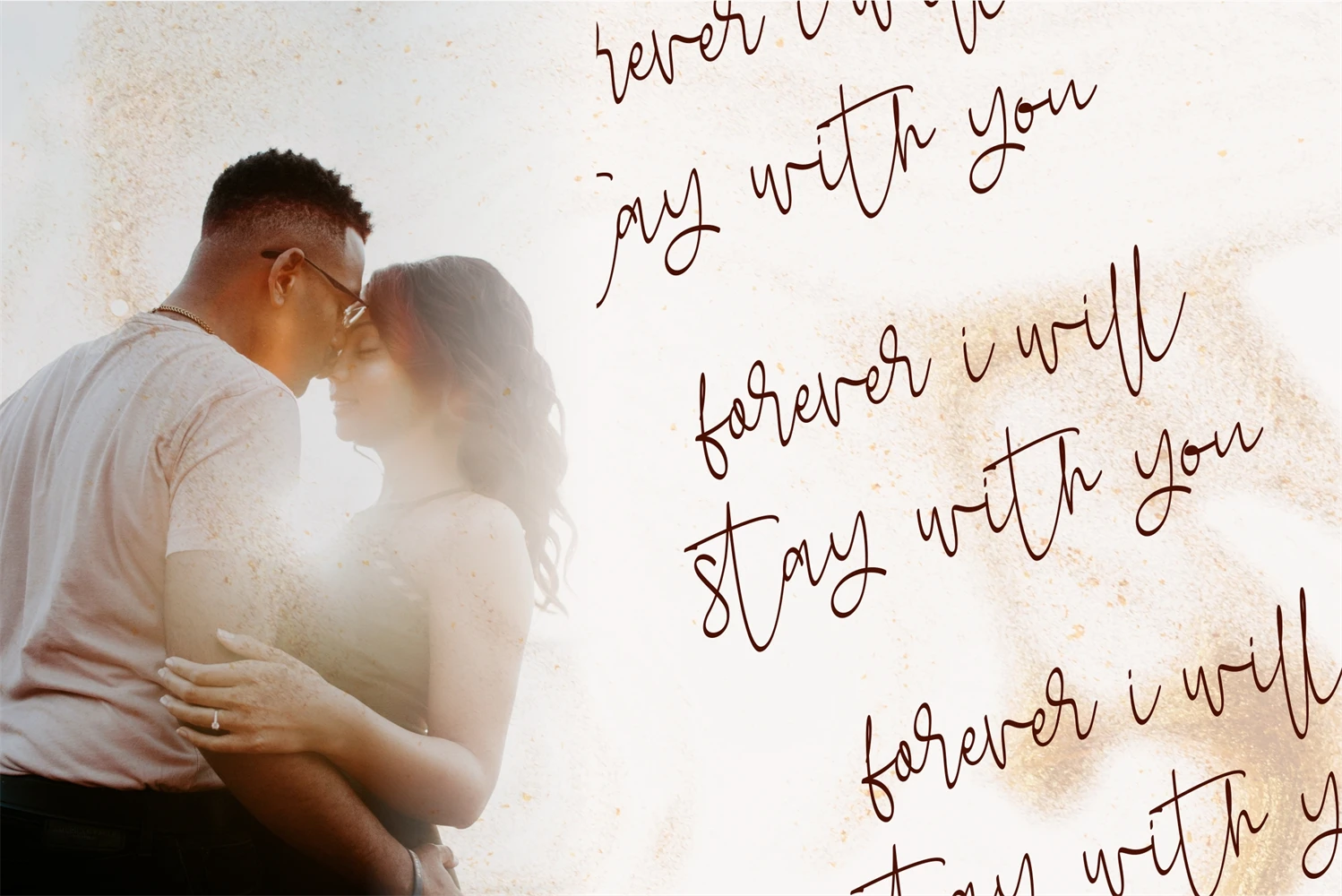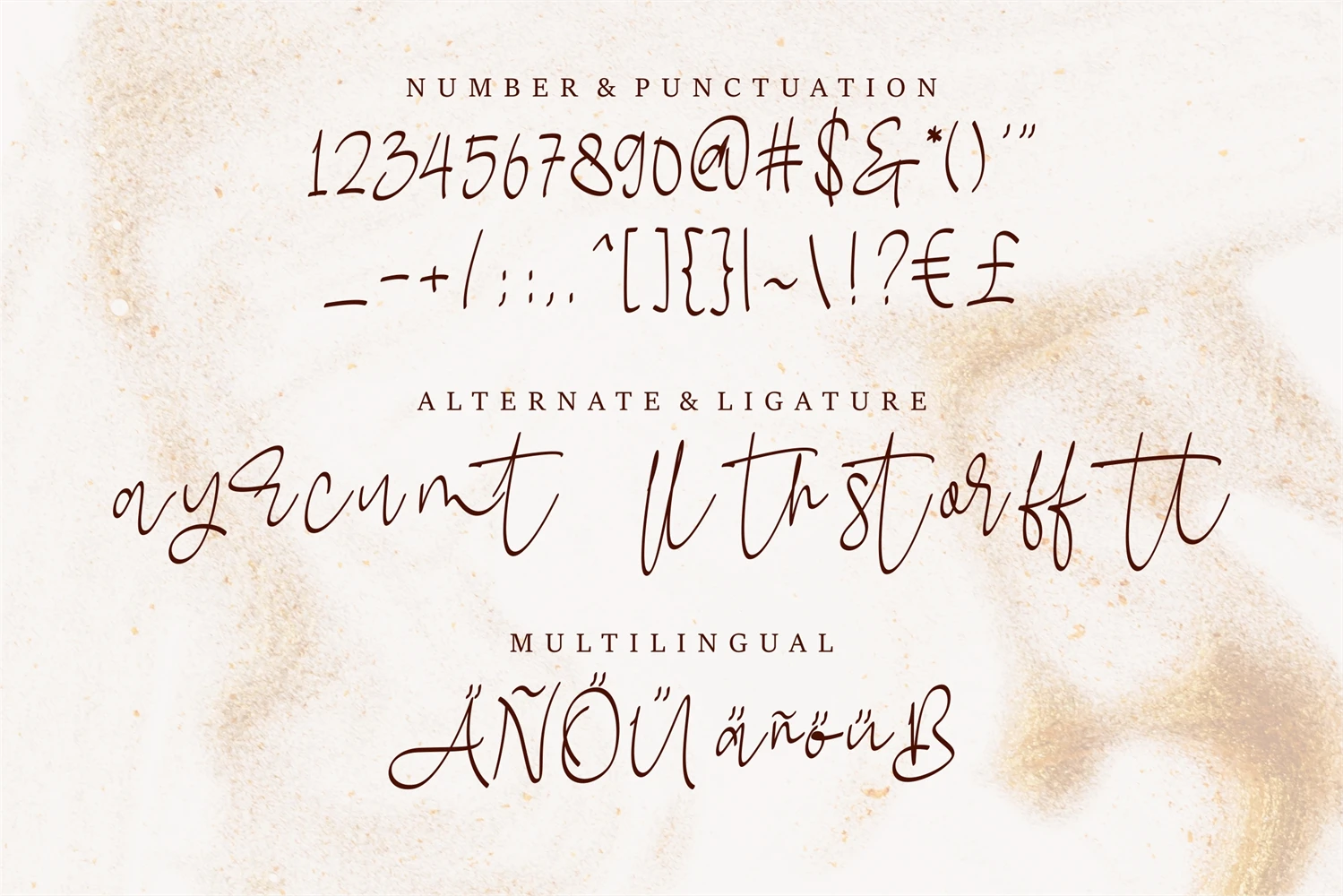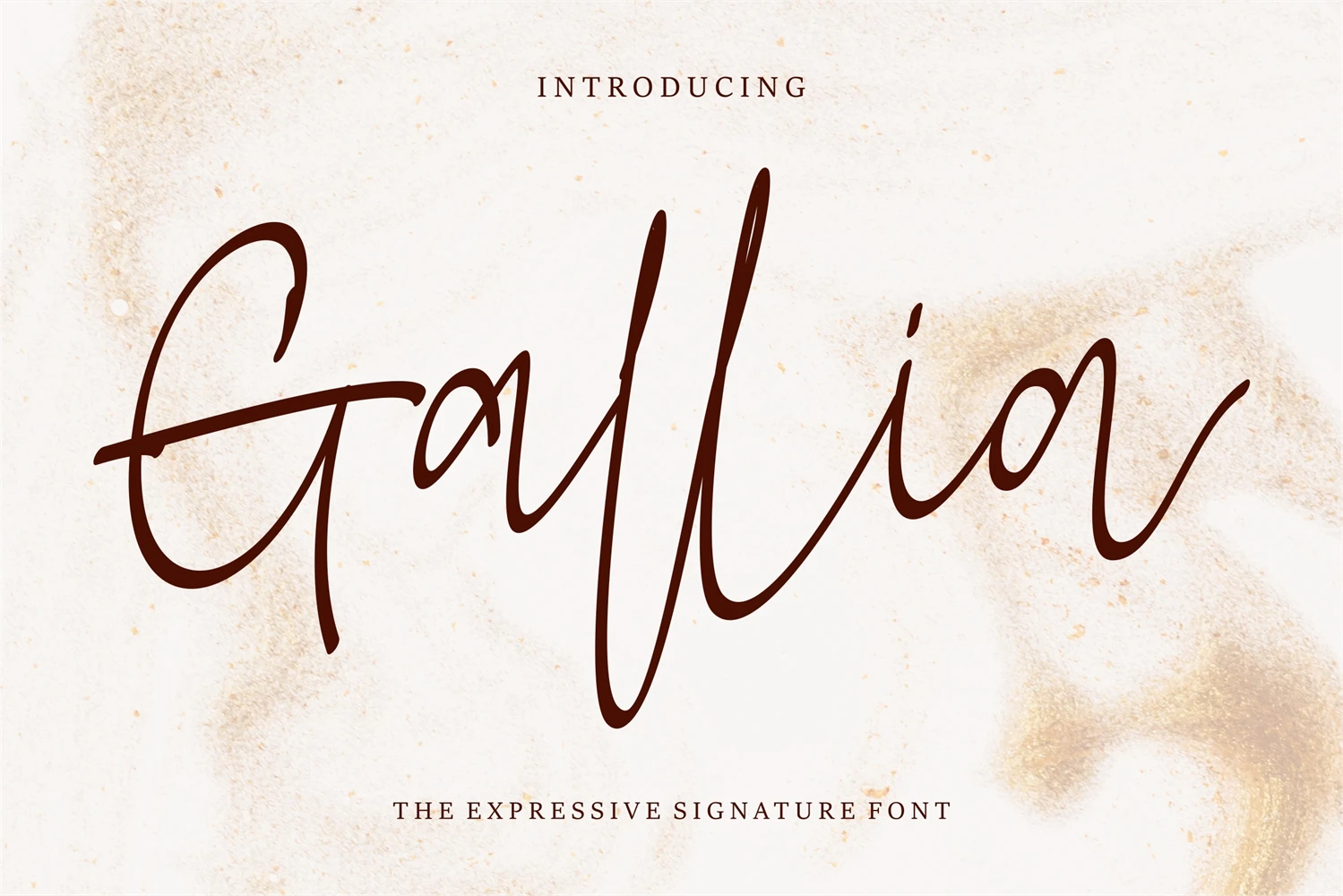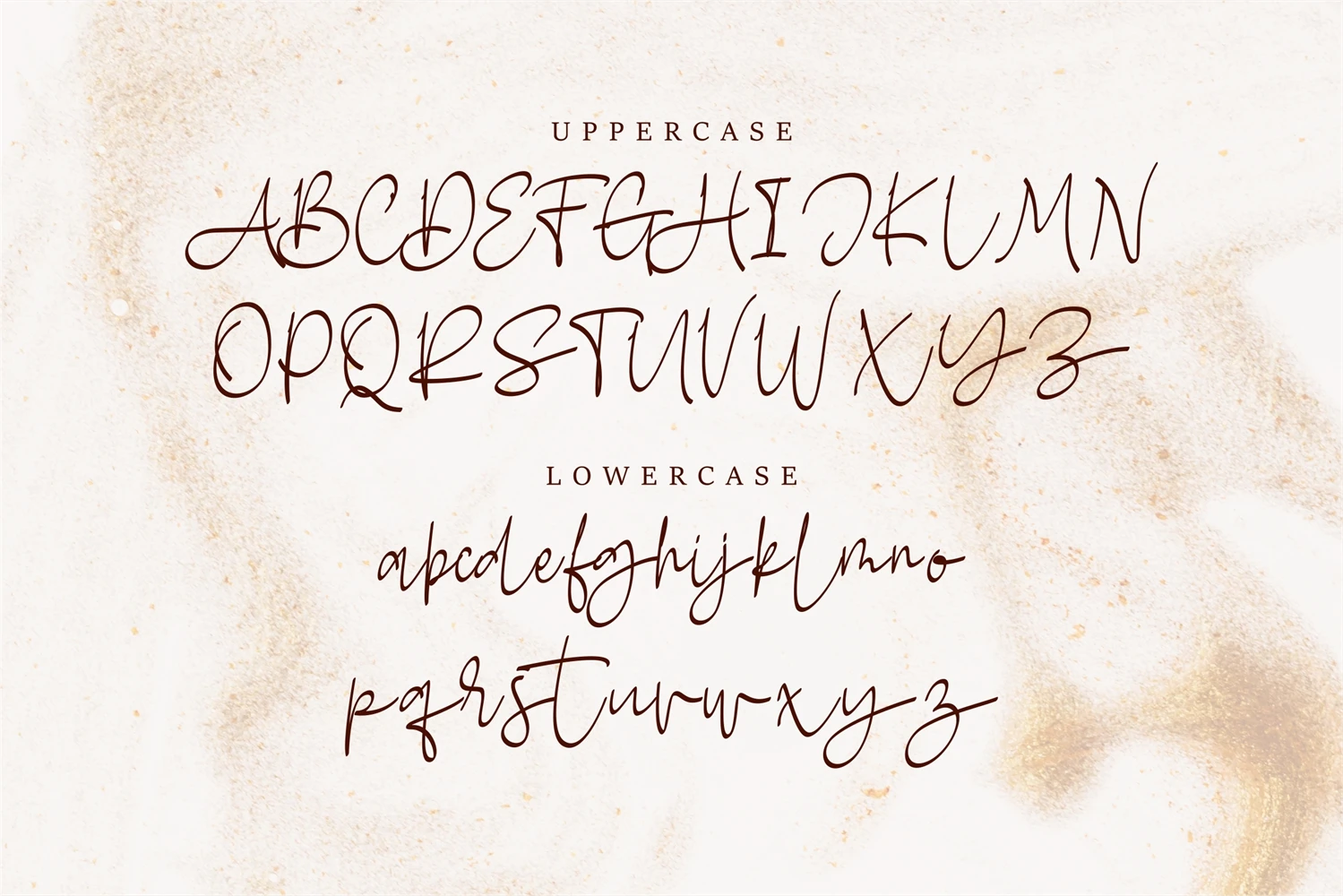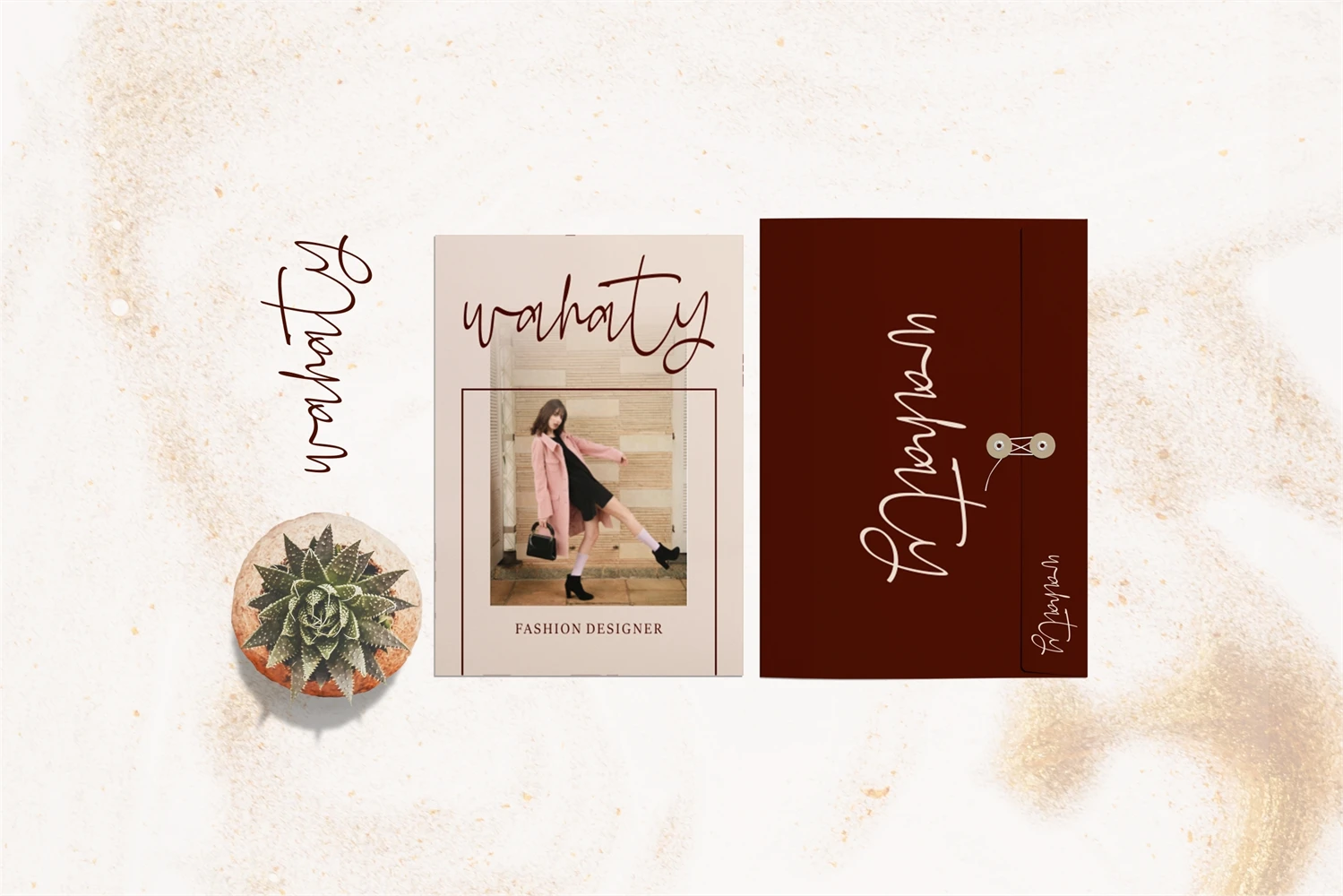
Galia - Script Signature Font
is a sophisticated and timeless script font that exudes a sense of grace and refinement. Its delicate yet confident strokes make it an ideal choice for projects that demand an air of sophistication, such as invitations, wedding materials, and upscale branding.